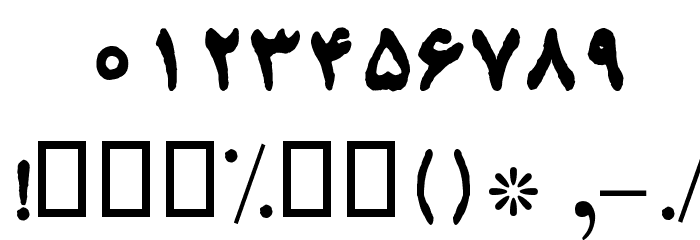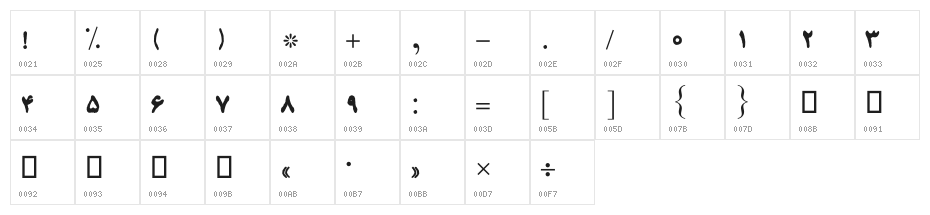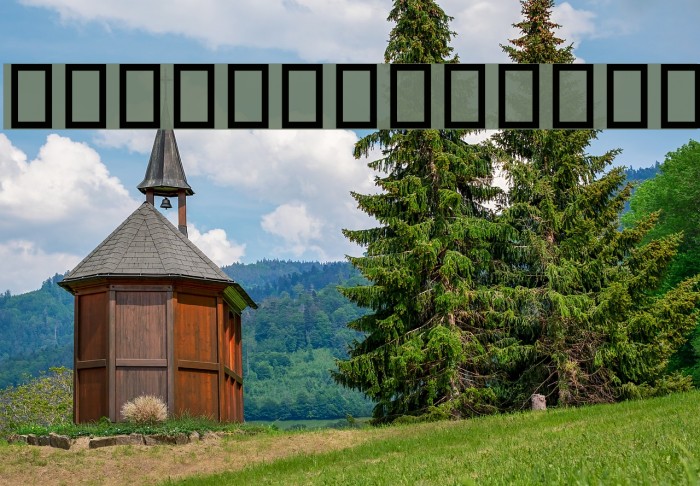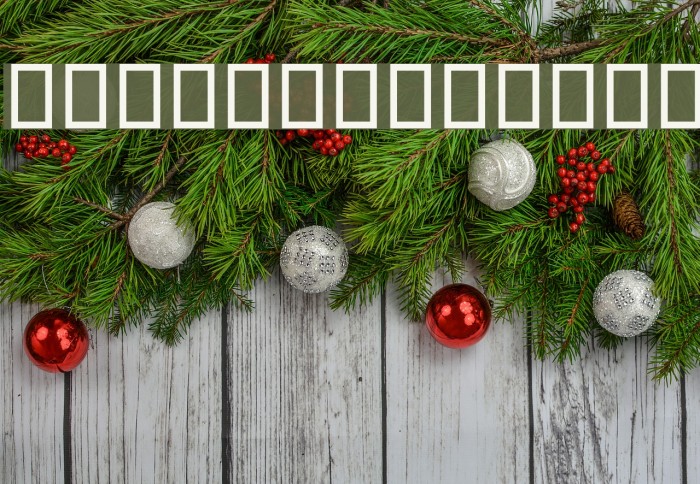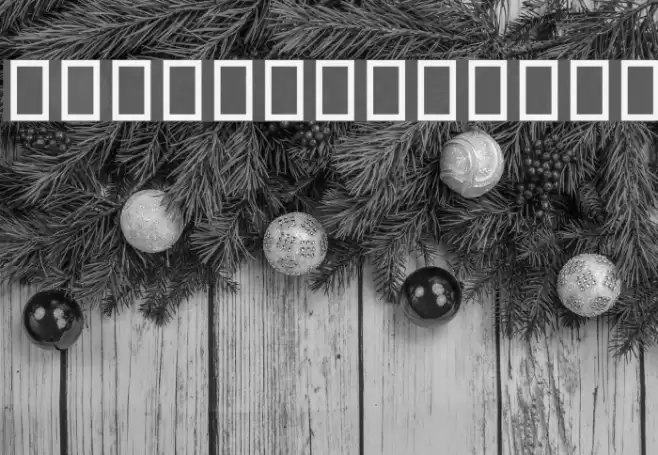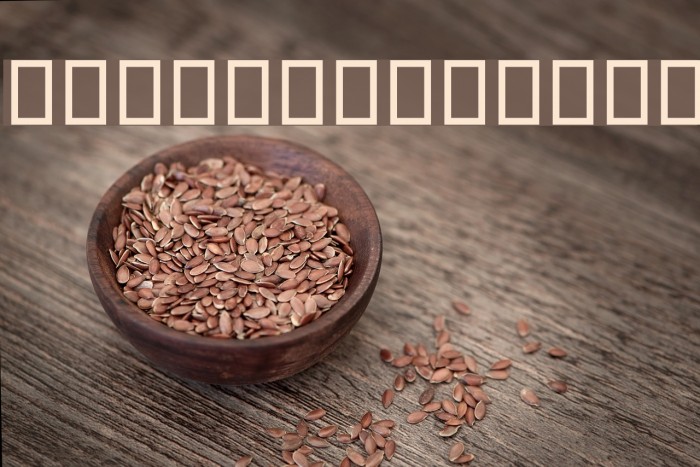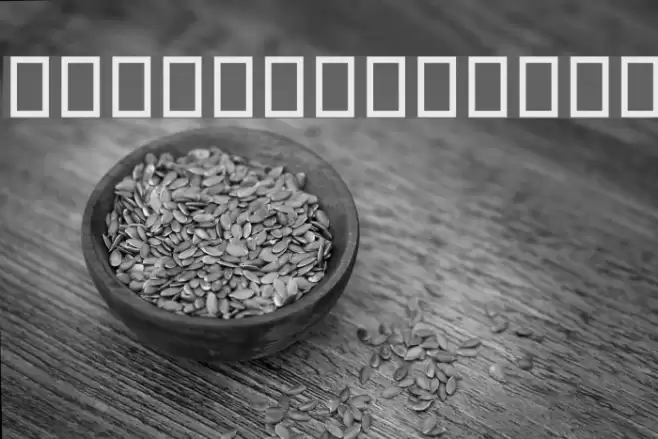
Ketaab Font
Ketaab Description
This font features a unique and artistic style with characters that have a hand-drawn appearance. The numerals are particularly distinctive, with a playful and slightly irregular form that adds a whimsical touch. The special characters, such as the exclamation mark and ampersand, are crafted with a bold and expressive flair, making them stand out. The overall design is creative and unconventional, suitable for projects that require a personal and artistic touch.
Overall StyleArtistic and Whimsical
Use CaseLogos, Posters, Creative projects
Proposed ProjectsIdeal for creative projects such as children's books, artistic posters, and unique branding materials.